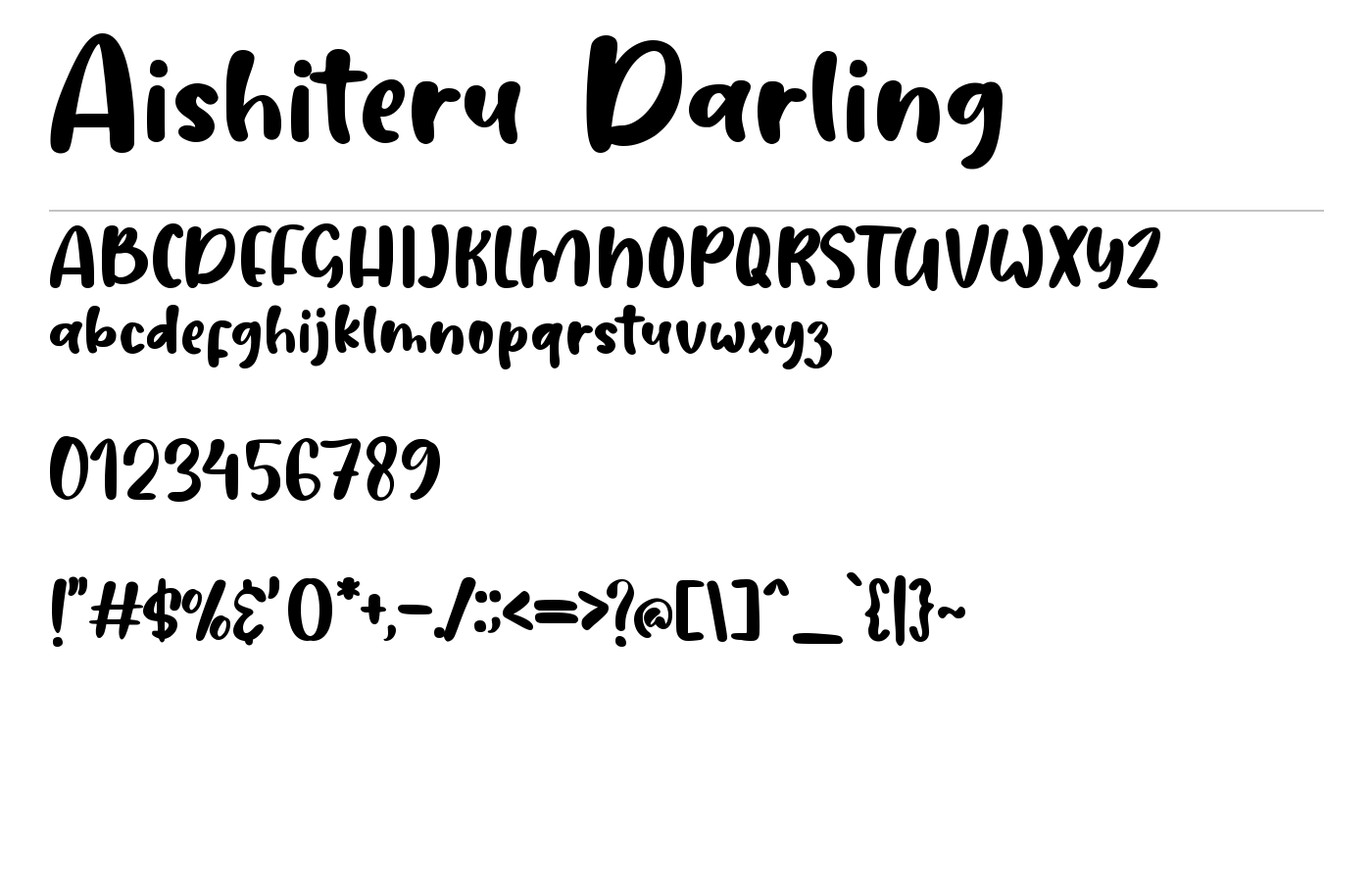
Aishiteru Darling is a playful and friendly handwritten sans serif font featuring rounded, bold strokes with low contrast, giving it a warm and approachable feel. Its casual style and lively character make it ideal for branding, children’s products, invitations, and any creative projects that benefit from a personal, cheerful touch. This font works best in headlines or decorative text where a fun and informal vibe is desired.
Aishiteru Darling Font
About Aishiteru Darling Font
| Font family | Aishiteru Darling Font |
| Designer | Muhamad Yusron Billah |
| Trademark | Sronstudio |